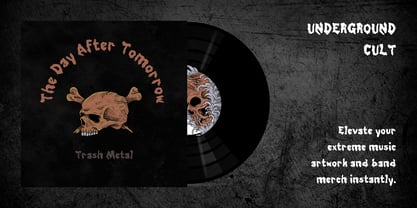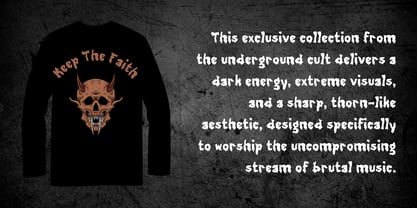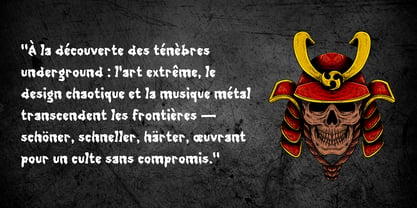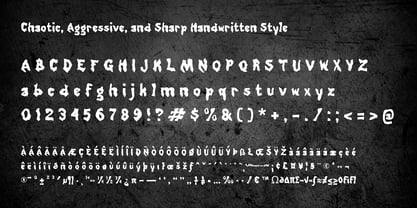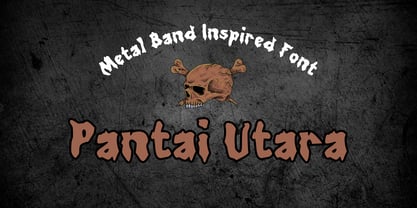
Pantai Utara
La famille de polices Pantai Utara a été conçue par Wahyu Eka Prasetya, Moch Zamroni et publiée par Kalam. Pantai Utara contient 2 styles et options de package familial. En savoir plus sur cette famille
Bring an aggressive, raw, and dark aesthetic to your creative projects with Pantai Utara. Inspired by the fierce typography of extreme metal bands, this chaotic handwritten font features a sharp, thorn-like structure that instantly delivers an unsettling and rebellious visual punch.
Whether you are designing promotional artwork for a horror movie, heavy metal album covers, edgy band merchandise, dark posters, or alternative apparel, Pantai Utara stands out with its menacing character.
Key Features & Specifications:
• Styles Available: Includes both Regular and Oblique styles for dynamic typesetting.
• Character Set: Comprehensive set featuring 257 glyphs to support diverse design needs.
• Unique Design Concept: Crafted with jagged, chaotic strokes that mimic natural thorns, giving it an authentic handmade, aggressive look.
Suggested Design Uses:
• Horror movie posters and book covers
• Extreme metal, rock, and punk music branding
• Band merchandise, t-shirt designs, and apparel tags
• Edgy event flyers and underground publication titles
Pair Pantai Utara with clean, minimalist sans-serif fonts for secondary text or body copy to let its dramatic, thorn-like headlines command total attention.